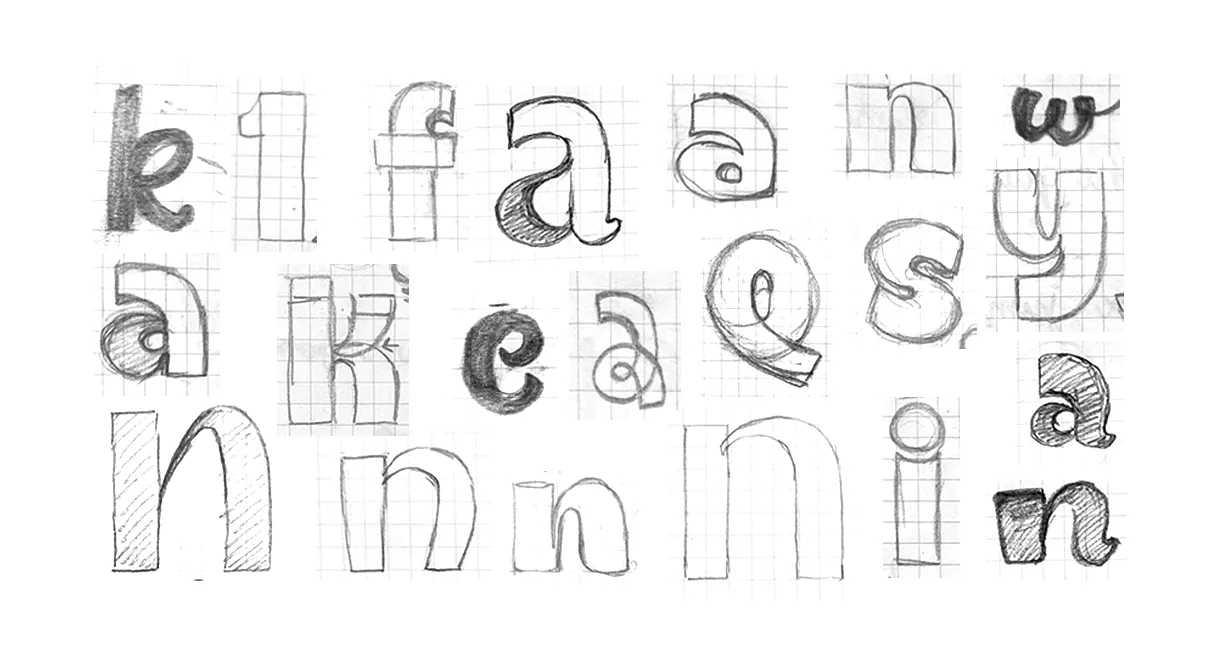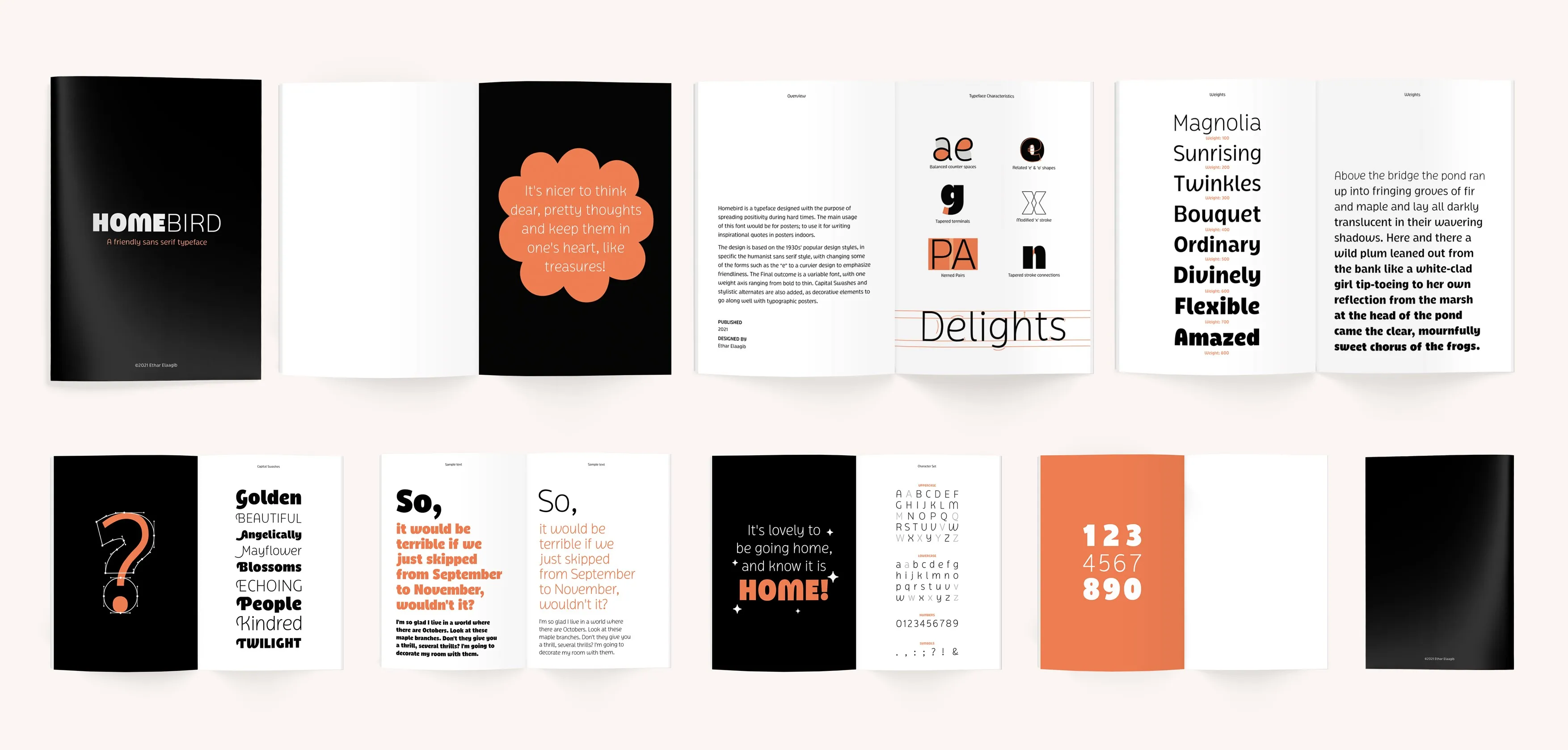
A Friendly Sans Serif Typeface
Homebird is a typeface designed with the purpose of spreading positivity during hard times. The main usage of this font would be for posters; to use it for writing inspirational quotes on posters indoors. The design is based on the humanist sans serif style, with changing some of the forms such as the 'e' to a curvier design to emphasize friendliness. This typeface was made as my graduation project of the Visual Communication Design department at Kyung Hee University.
Initial font sketches
Homebird typeface presented in a 16-page type specimen.